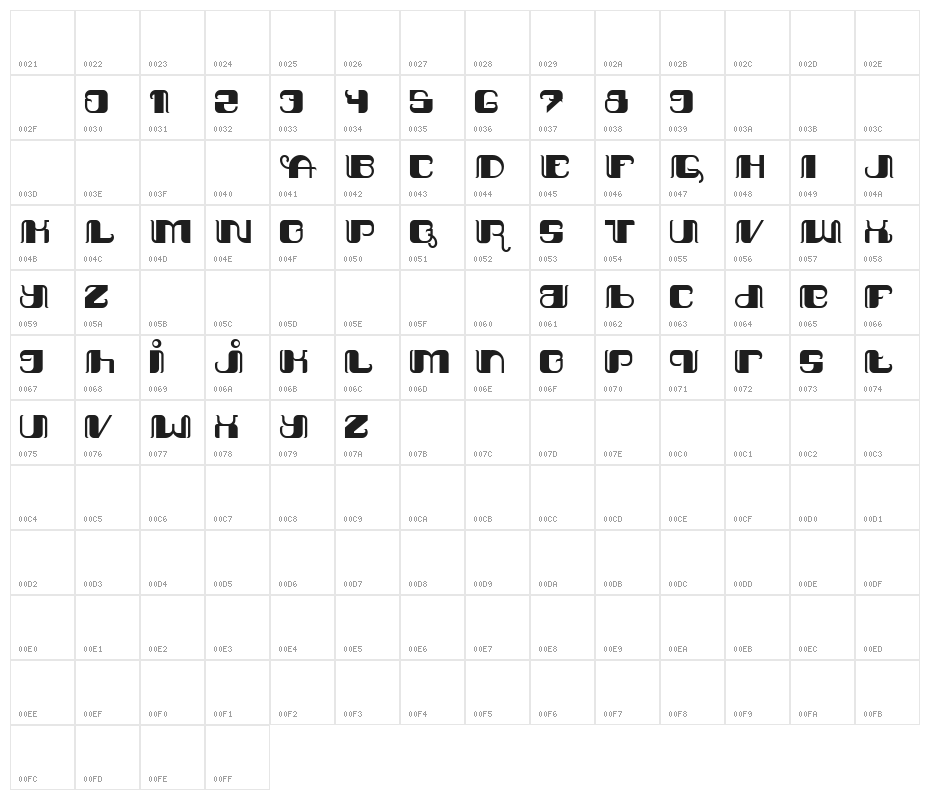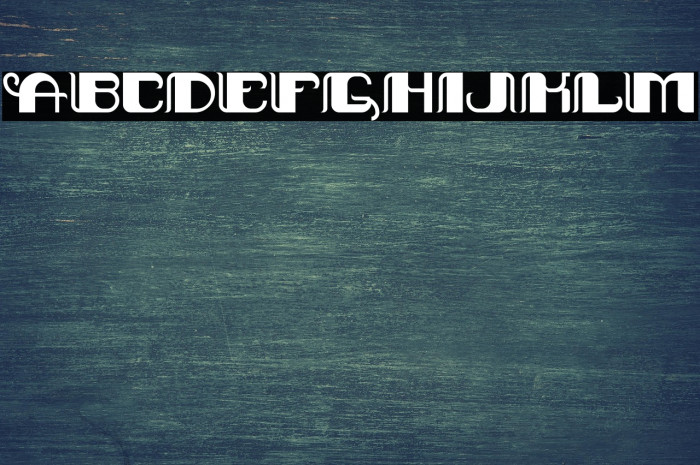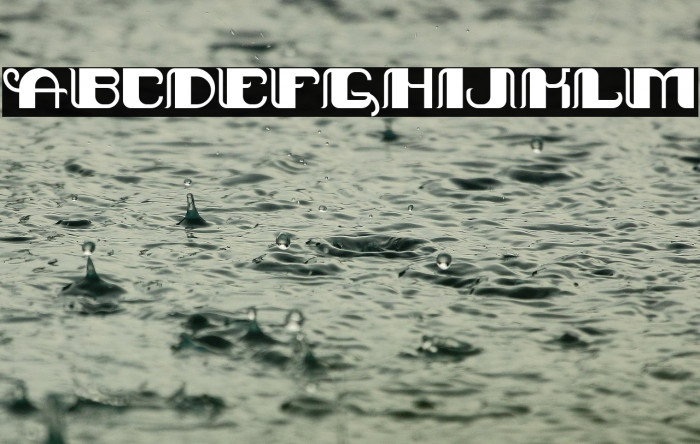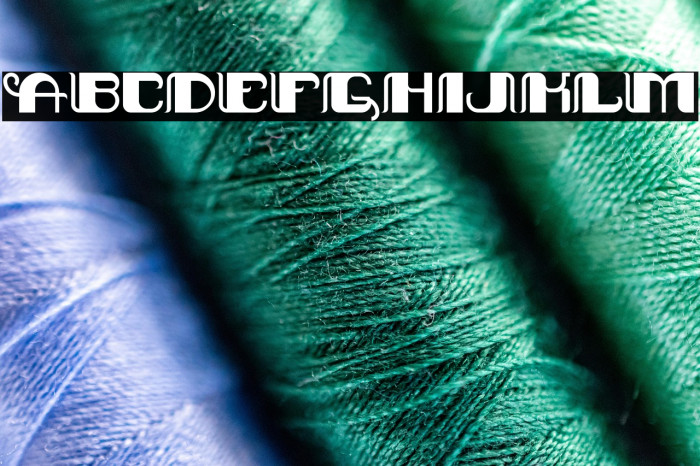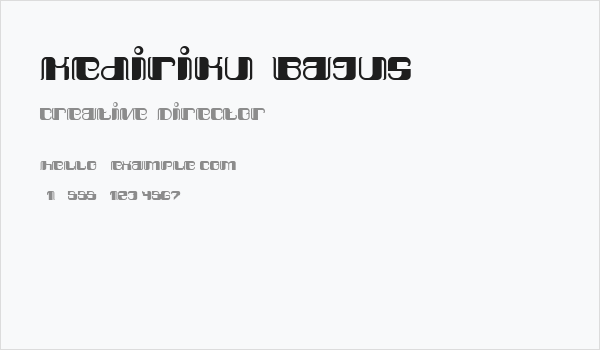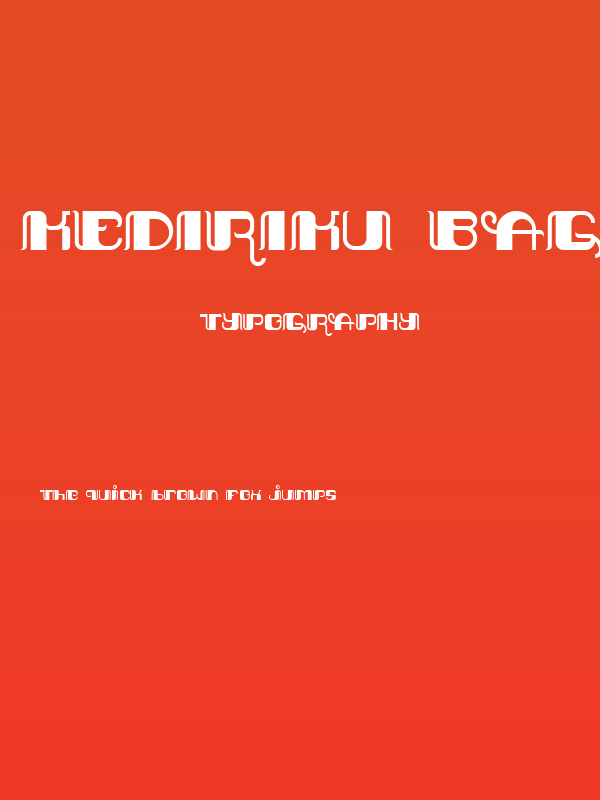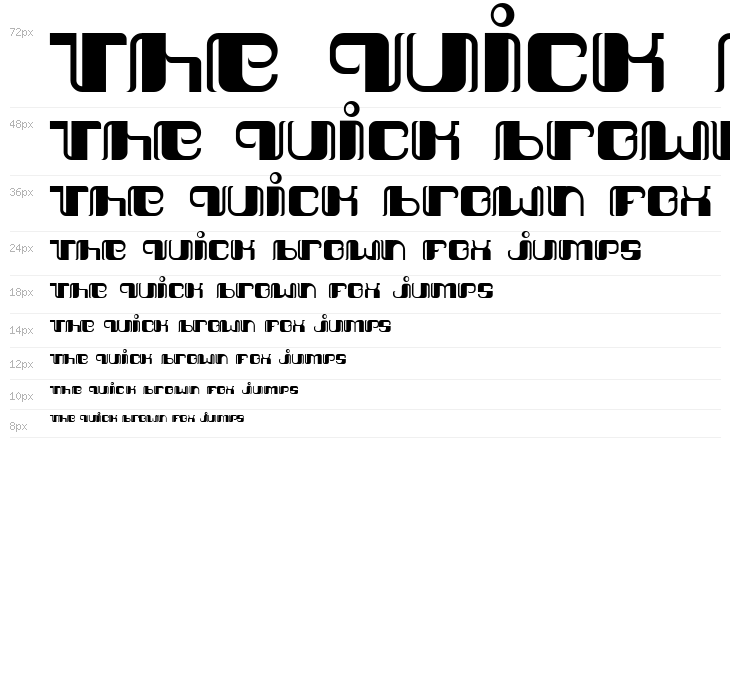
Kediriku Bagus Font
Kediriku Bagus Description
This font features a unique and modern design with a futuristic flair. The characters are bold and have a distinct geometric structure, incorporating both rounded and angular elements. The uppercase letters are particularly striking, with some characters featuring unexpected curves and lines that add a sense of movement and dynamism. The lowercase letters maintain the same boldness and geometric style, ensuring consistency across the typeface. Numbers are equally bold and share the same design principles, making them stand out. The special characters are designed to match the overall aesthetic, providing a cohesive look. This font is ideal for projects that require a modern and eye-catching typeface.
| Proposed Projects | Ideal for branding, posters, digital media, and any project needing a modern, standout typeface. |